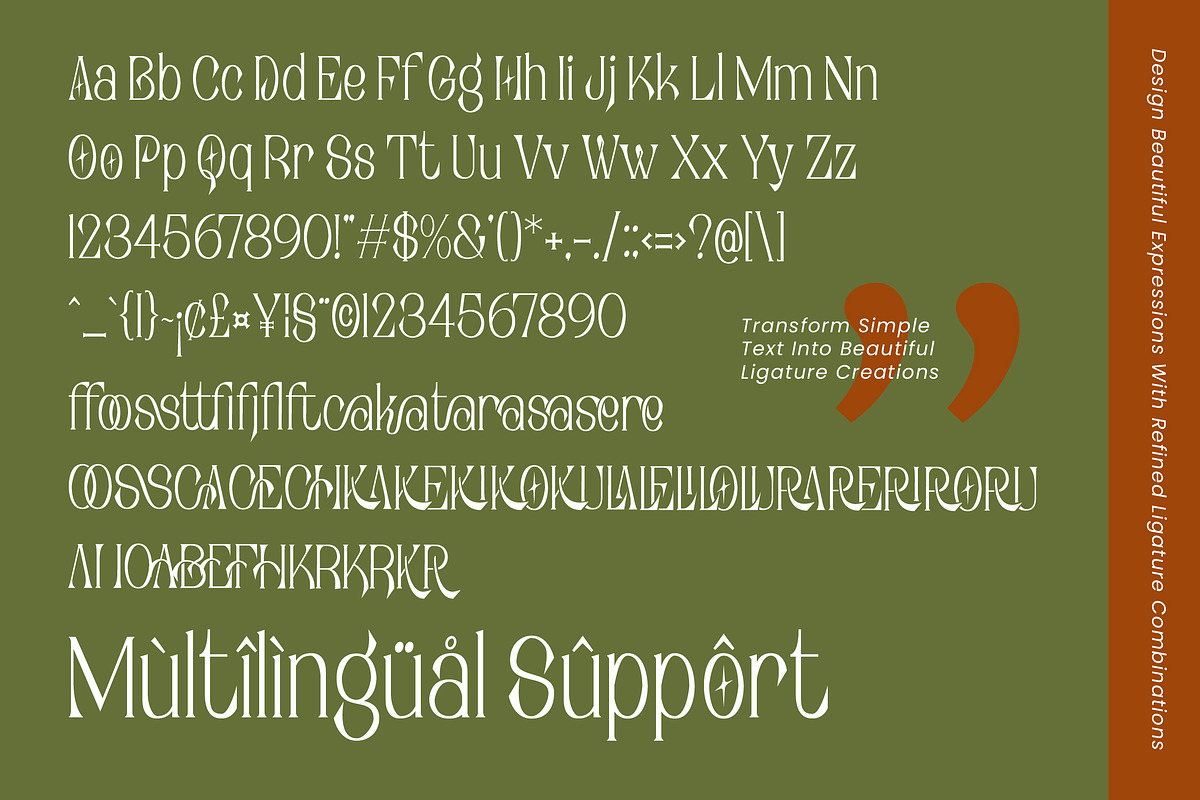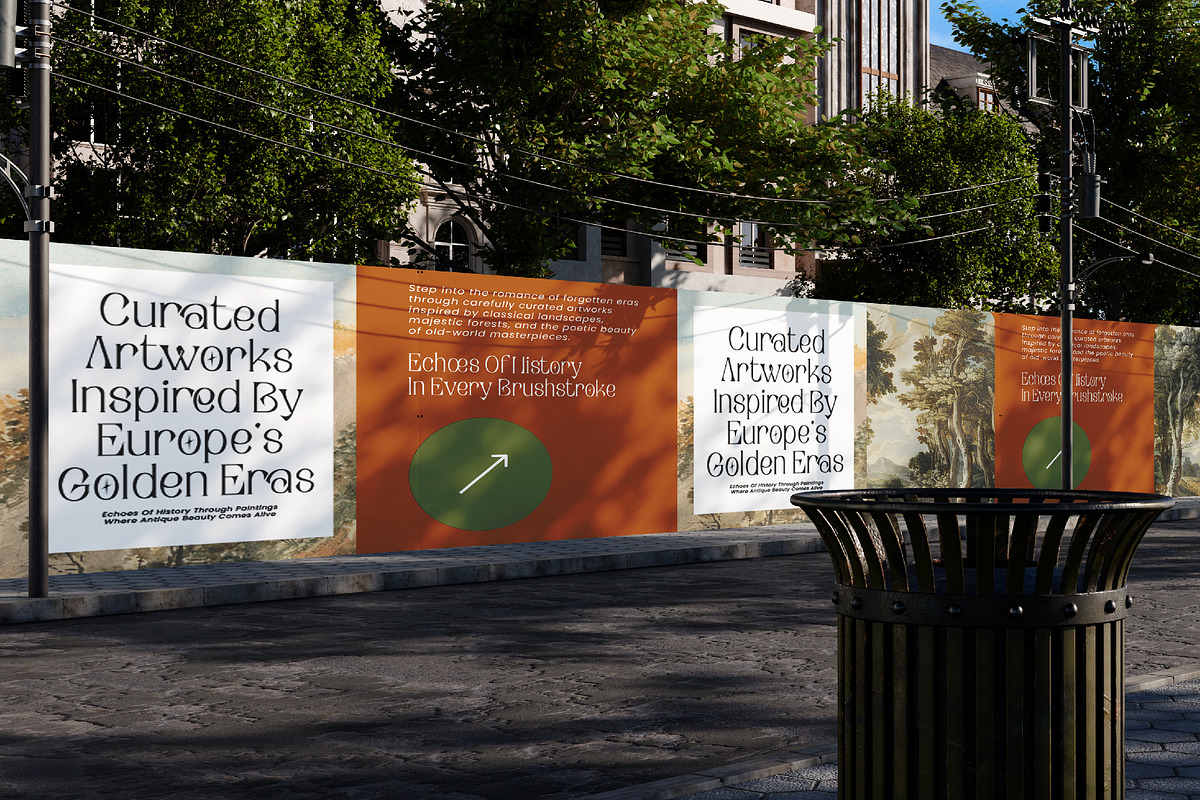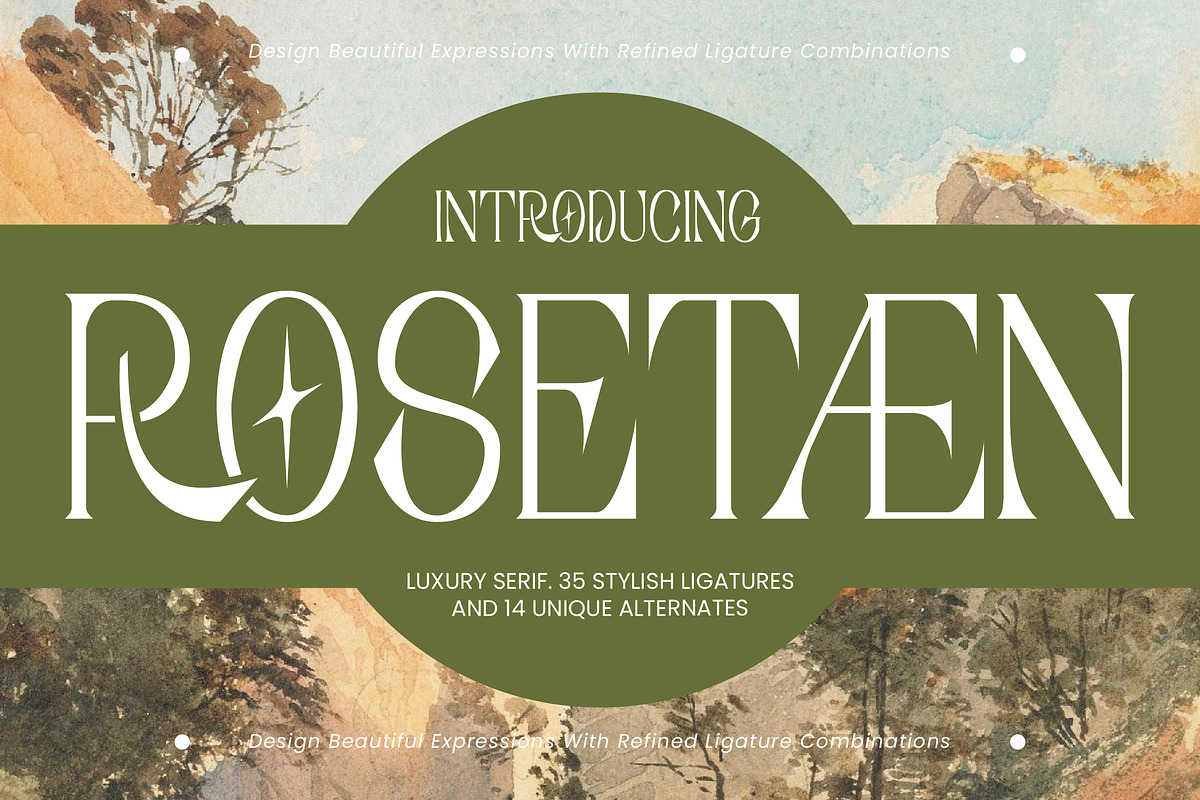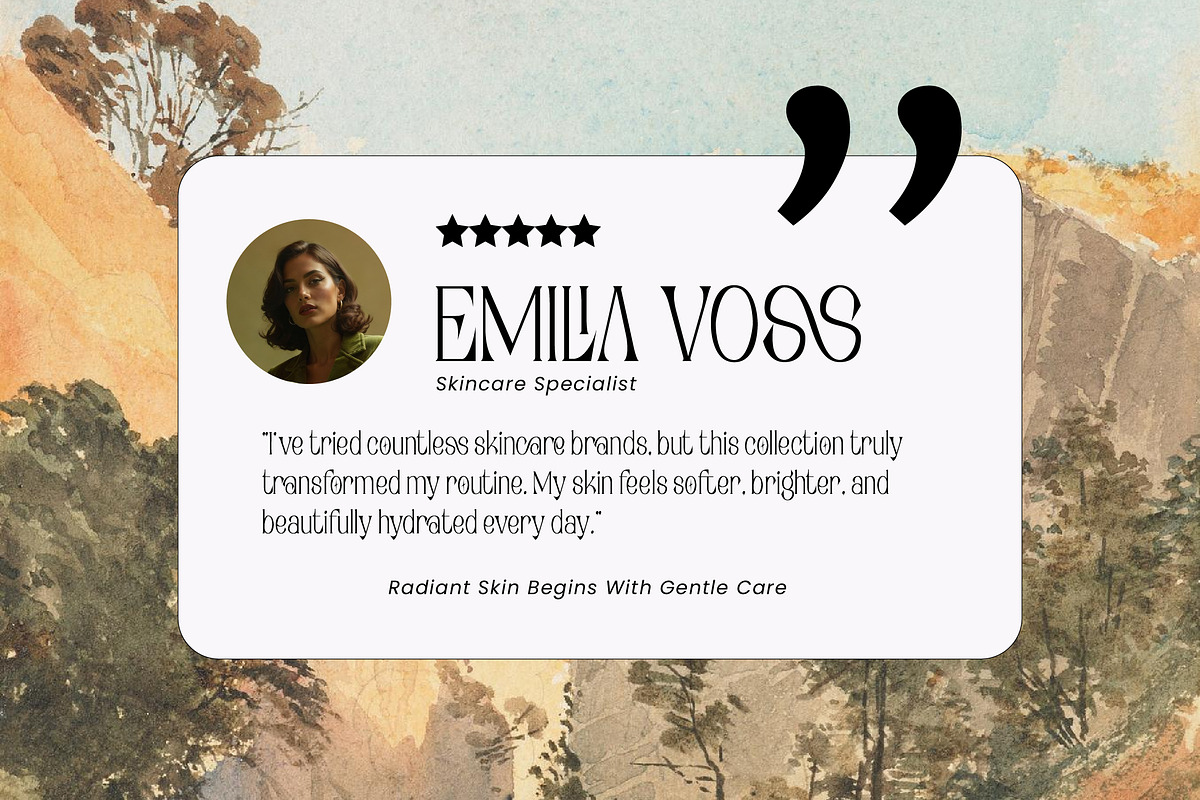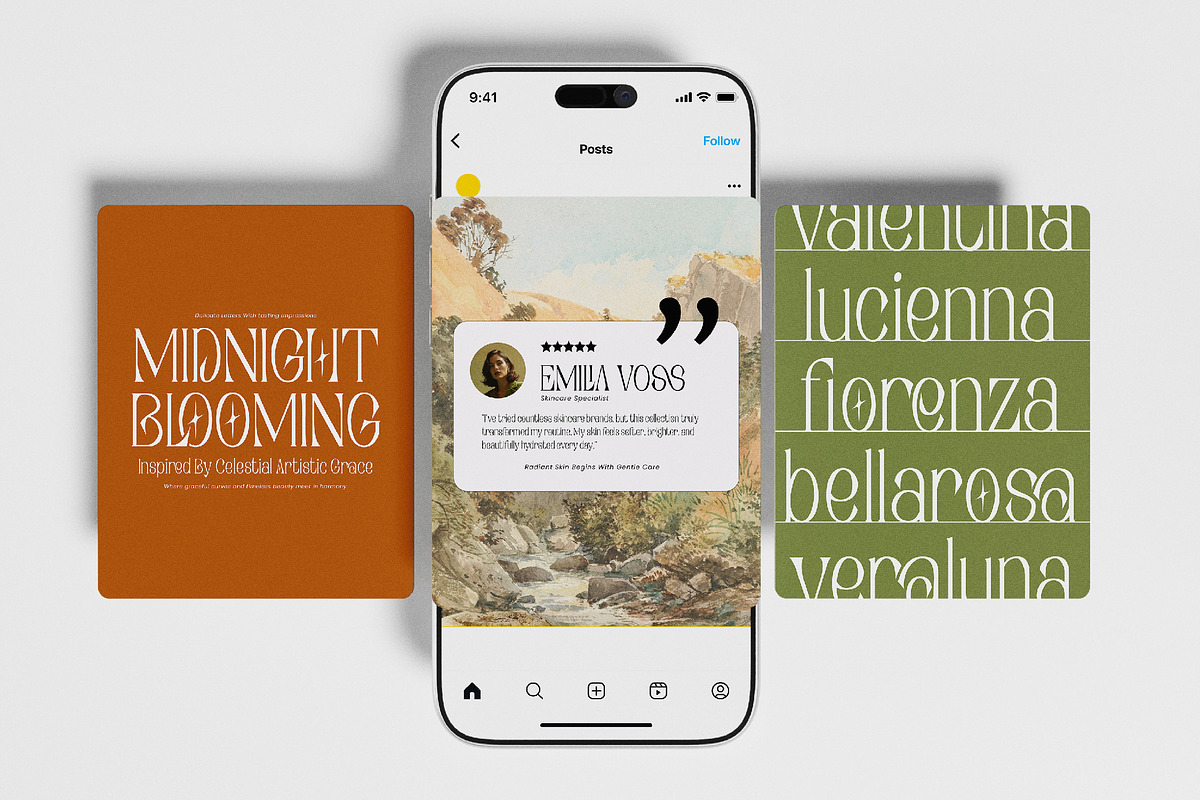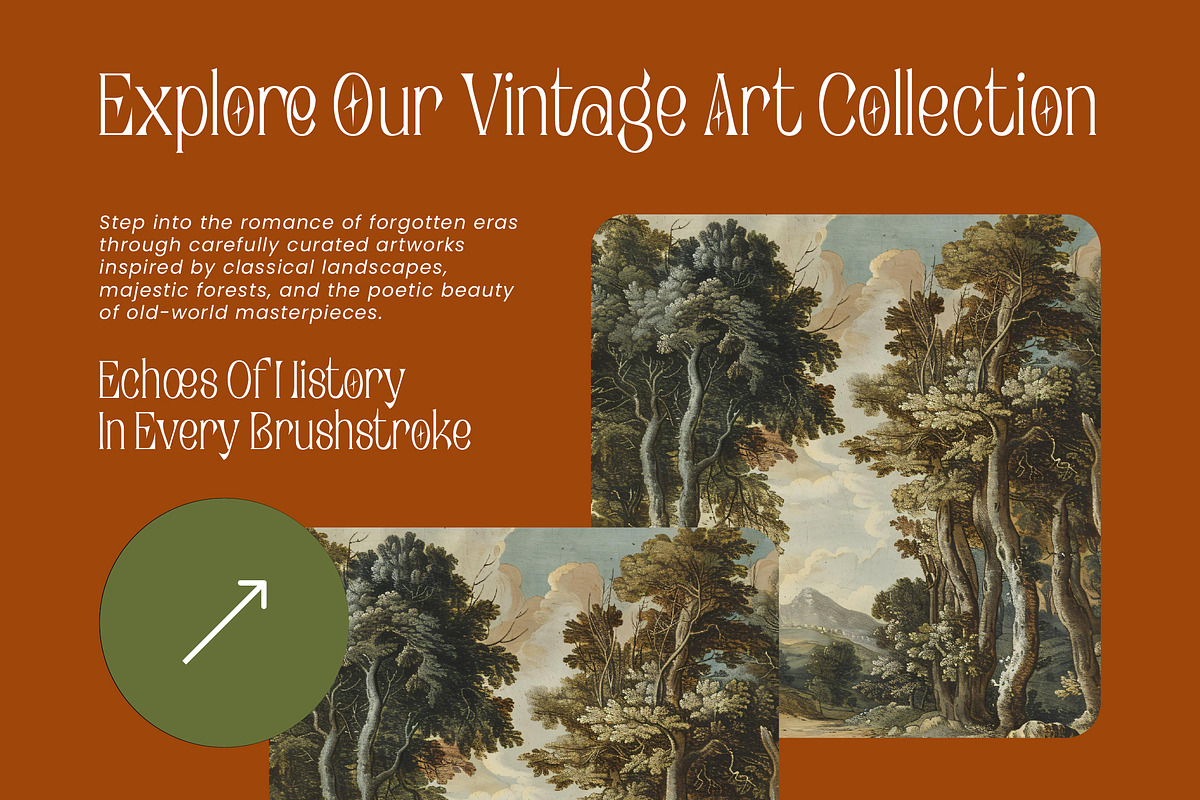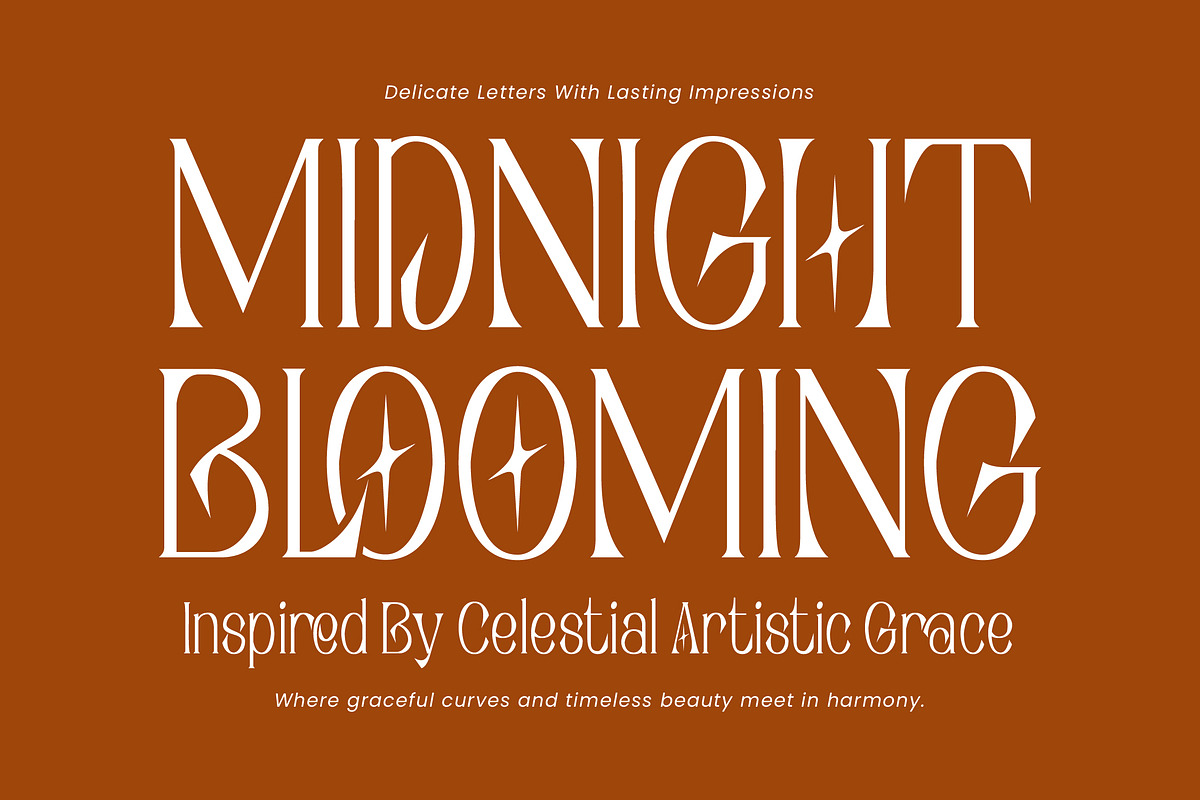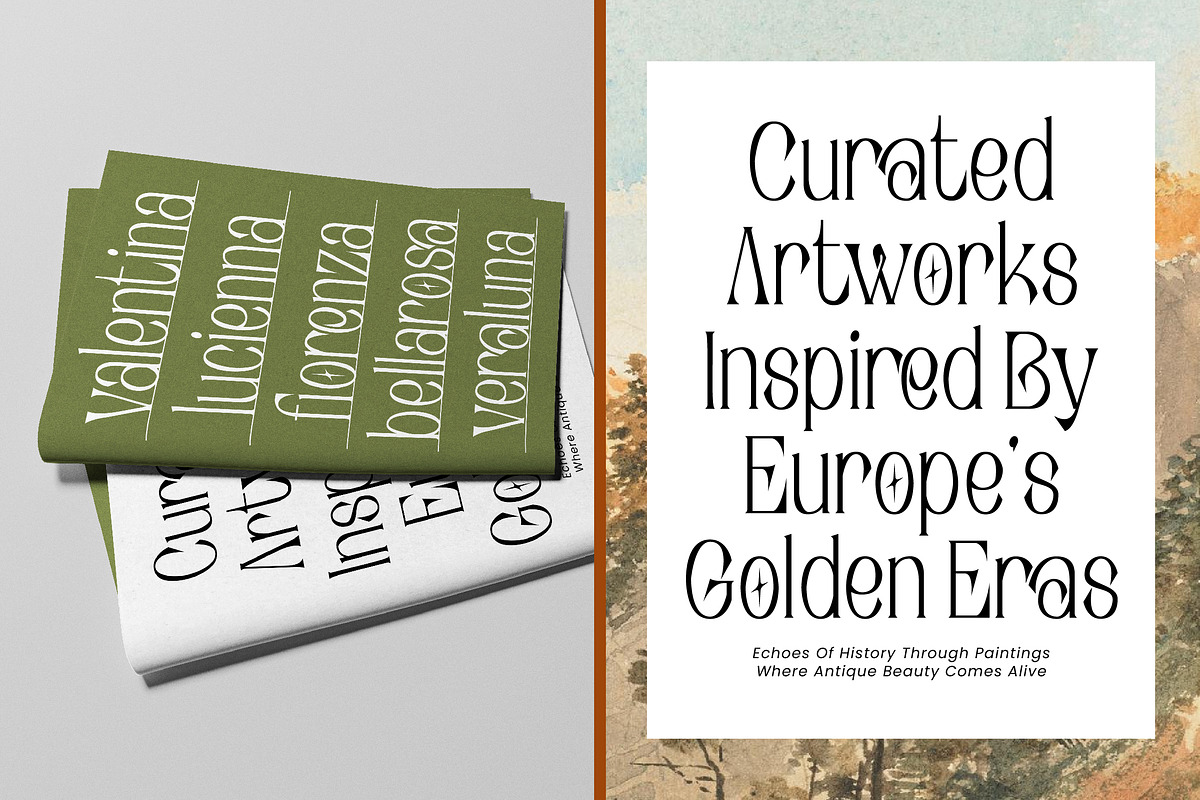
Rosetaen Luxury Serif
Rosetaen is a luxury serif font crafted to bring sophistication, elegance, and artistic character to your designs. Featuring beautifully refined ligatures and unique alternate characters, this typeface creates seamless letter combinations that elevate every word with a distinctive high-end appearance.
Its graceful contrast, decorative details, and timeless serif structure make Rosetaen an excellent choice for luxury branding, fashion editorials, wedding stationery, premium packaging, and modern logo design. Whether used for headlines or sophisticated visual identities, Rosetaen delivers a stylish and memorable impression.
Designed with 35 elegant ligatures and 14 unique alternates, Rosetaen offers endless creative possibilities for crafting beautiful typography with a refined and exclusive aesthetic.